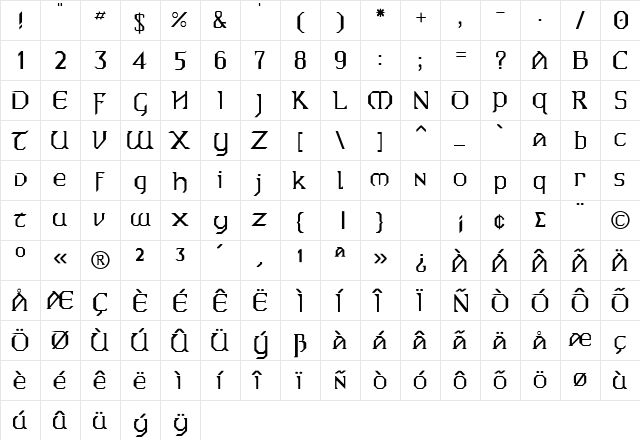
Query Normal
Design Context for Query Typeface
Query is a composed and adaptable typeface that performs quietly and consistently across a wide range of design contexts.